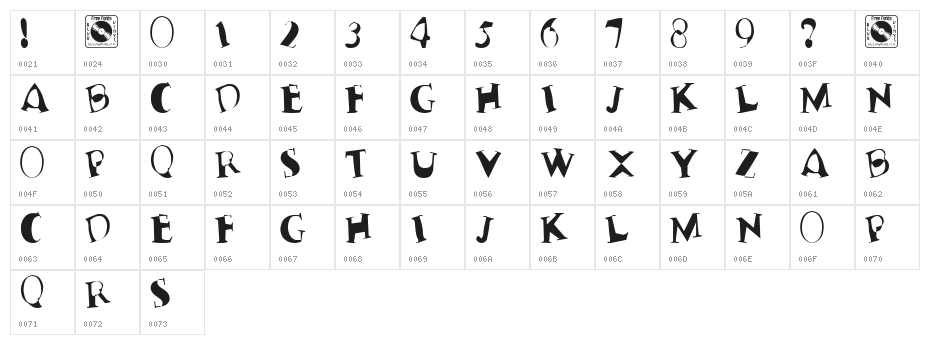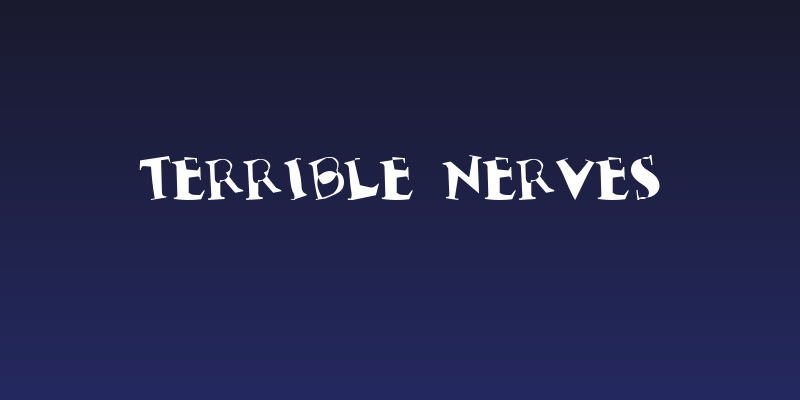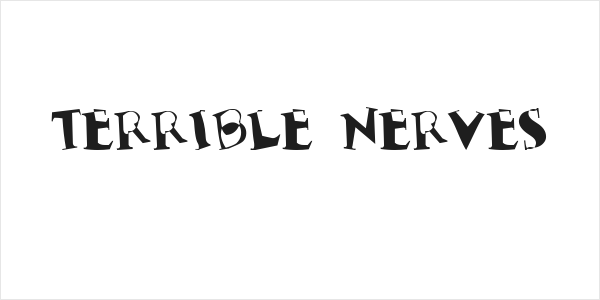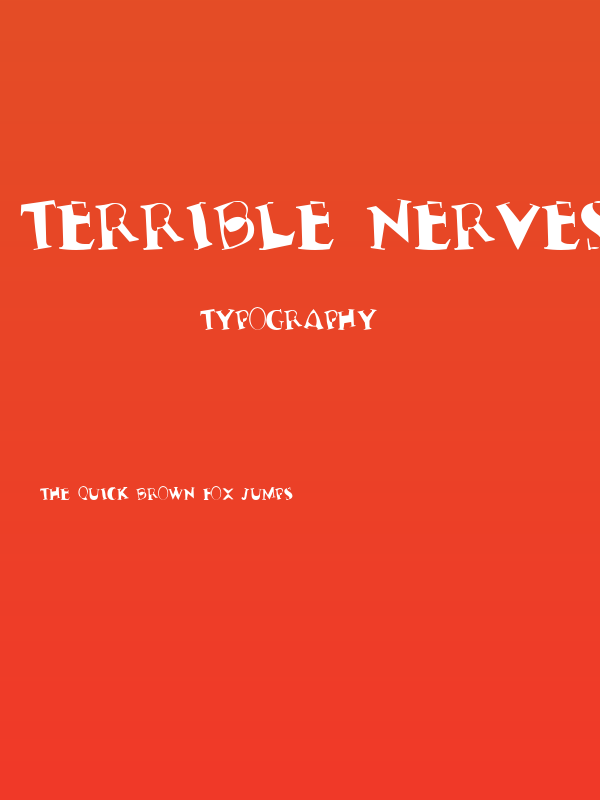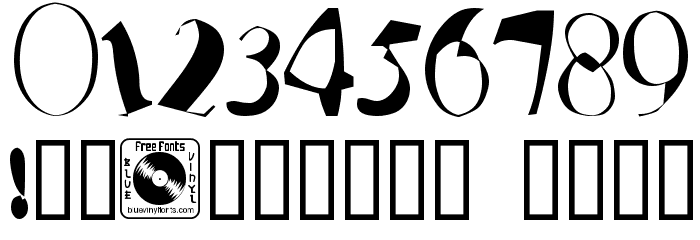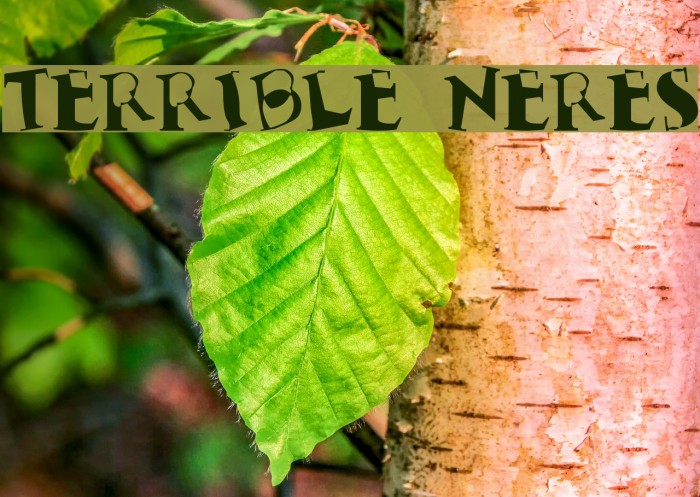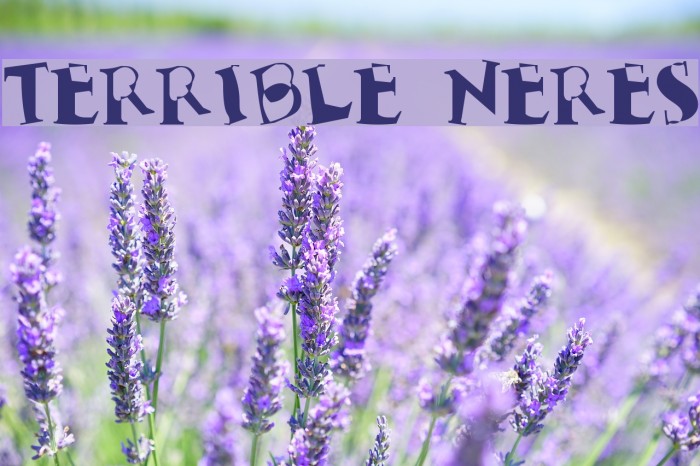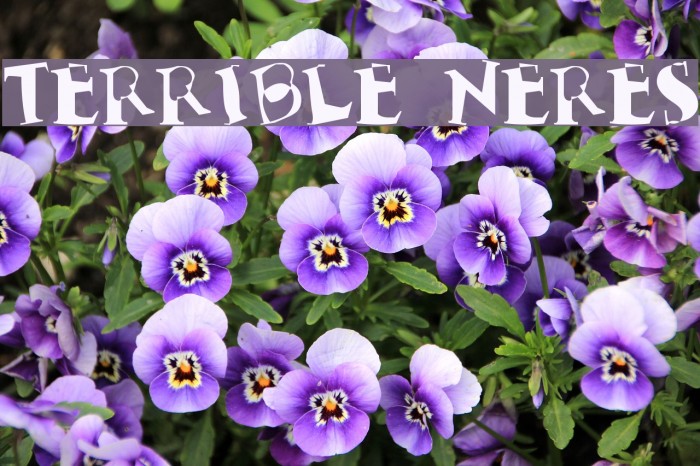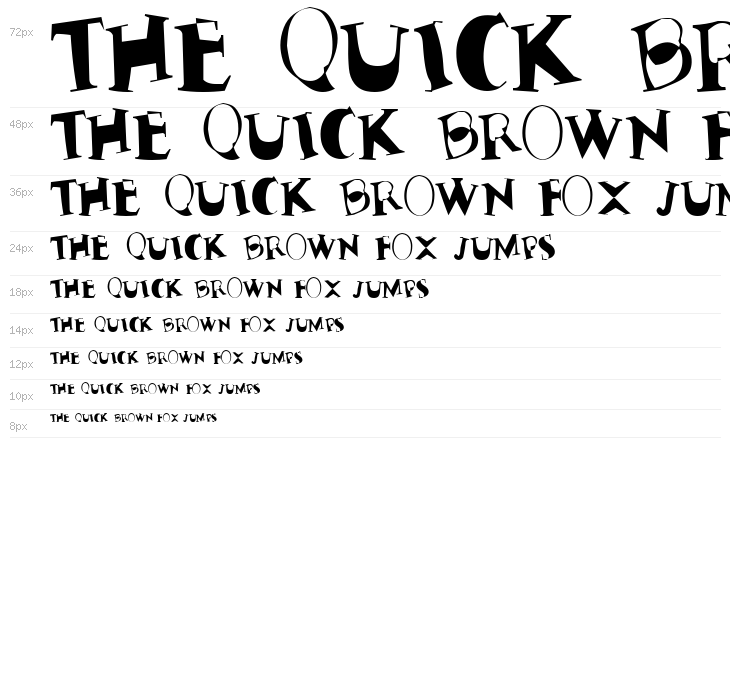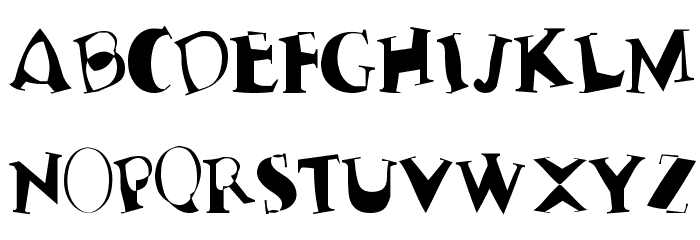
Terrible Nerves Font
Terrible Nerves Description
This font features a playful and quirky style, characterized by its uneven and irregular letterforms. The uppercase and lowercase letters exhibit a whimsical, hand-drawn appearance with varying stroke widths that create a dynamic and energetic feel. The numbers and special characters maintain this lively aesthetic, making the font suitable for creative and informal designs. Its unique and artistic flair is ideal for projects that require a touch of personality and fun. The font's overall appearance is bold and eye-catching, making it perfect for headlines and titles that need to stand out.
| Proposed Projects | Ideal for children's books, playful branding, creative posters, and informal invitations. |